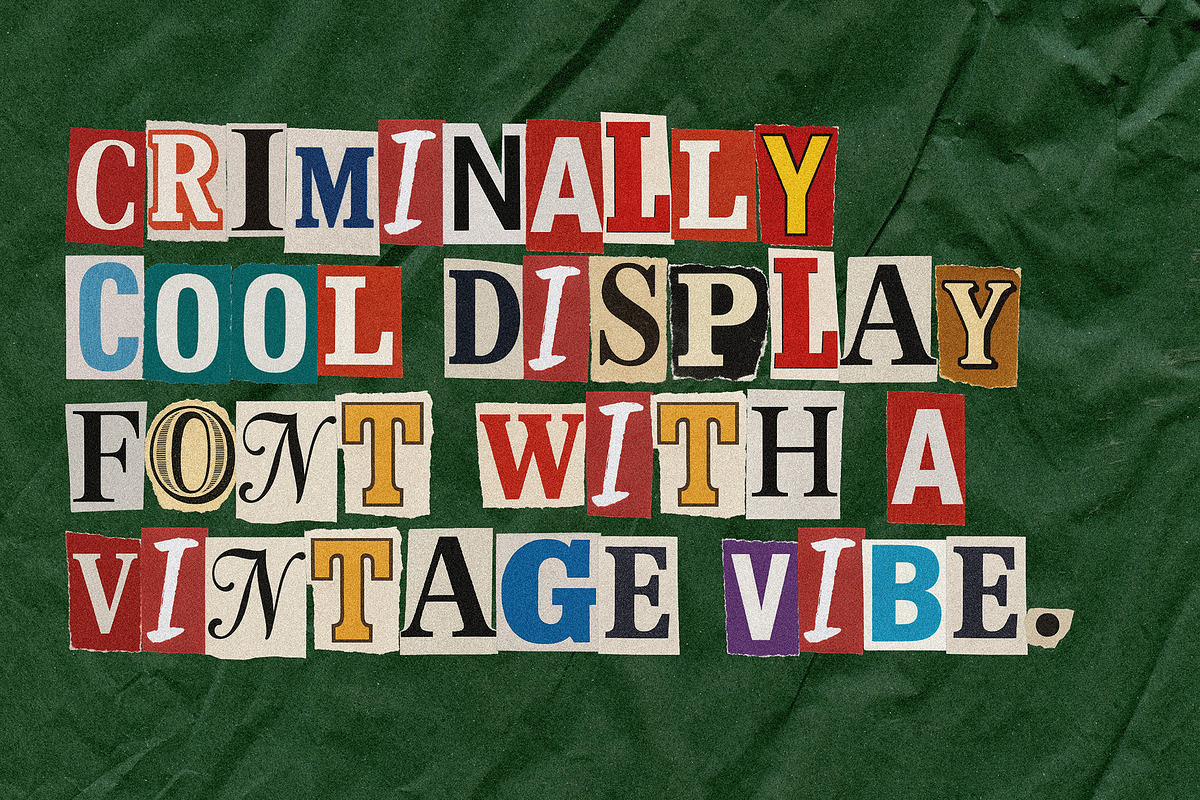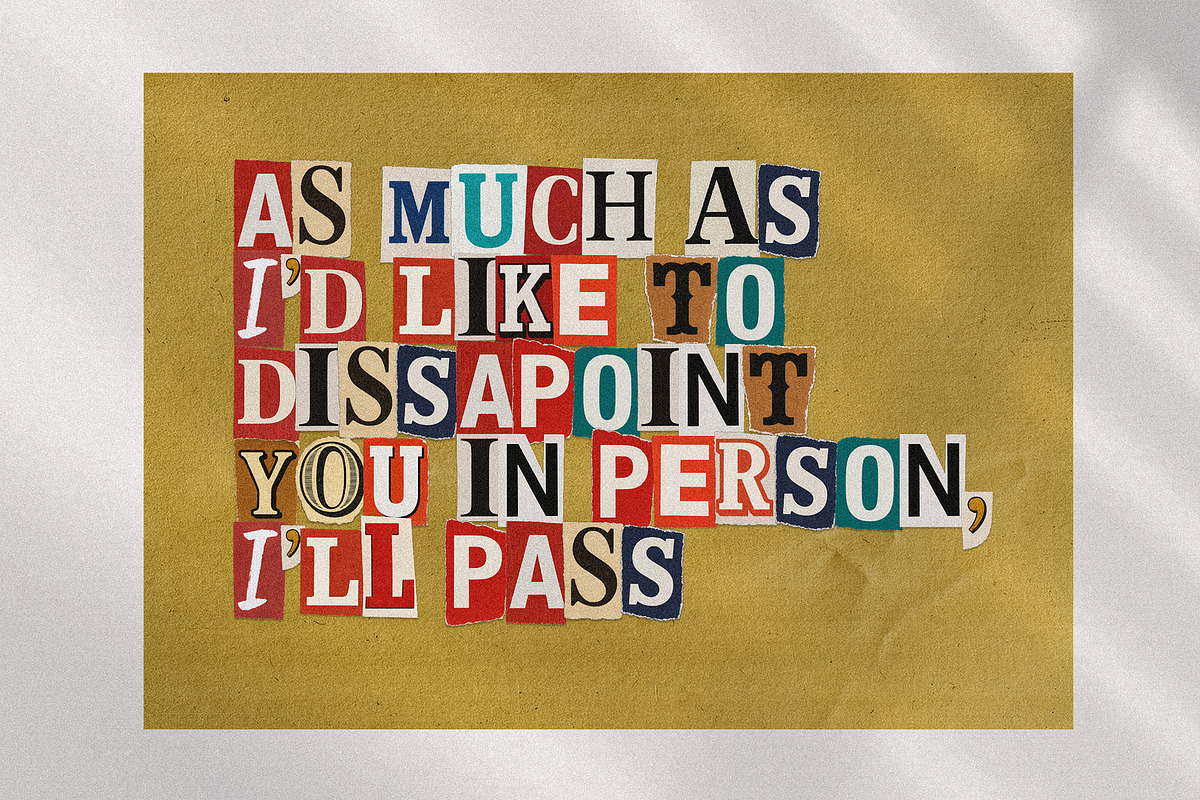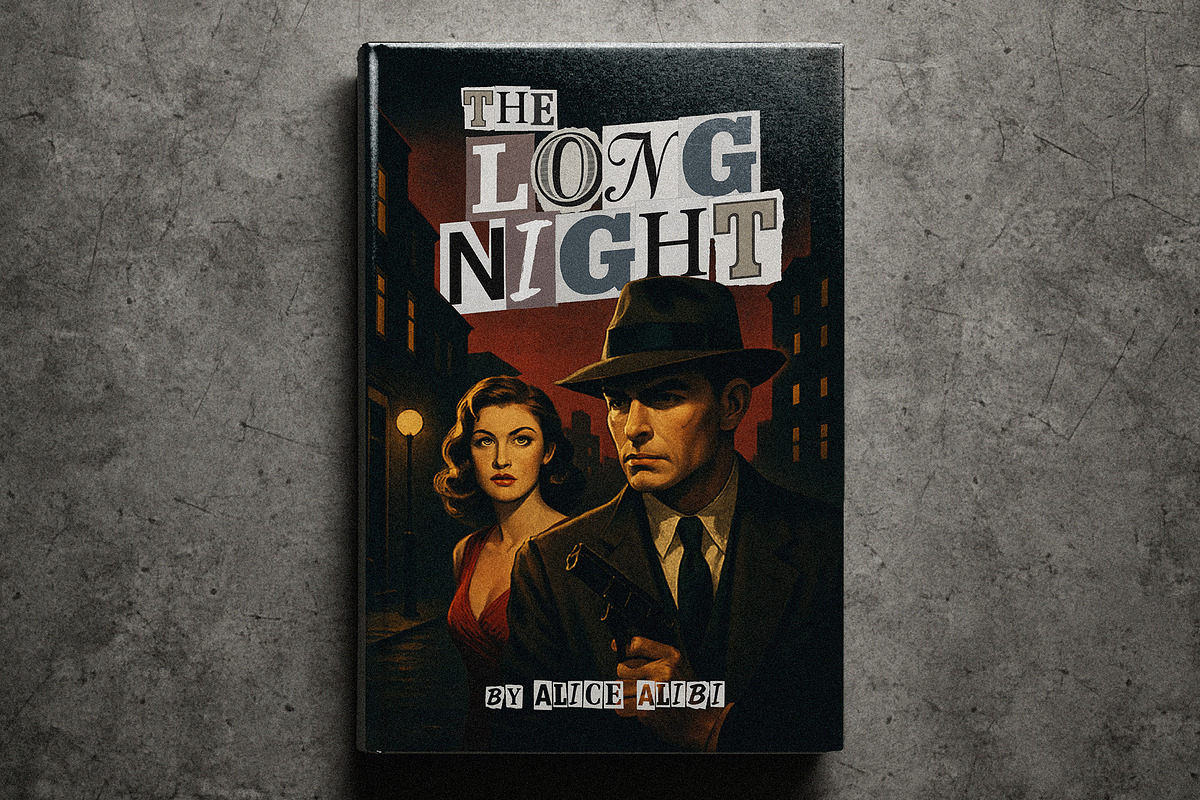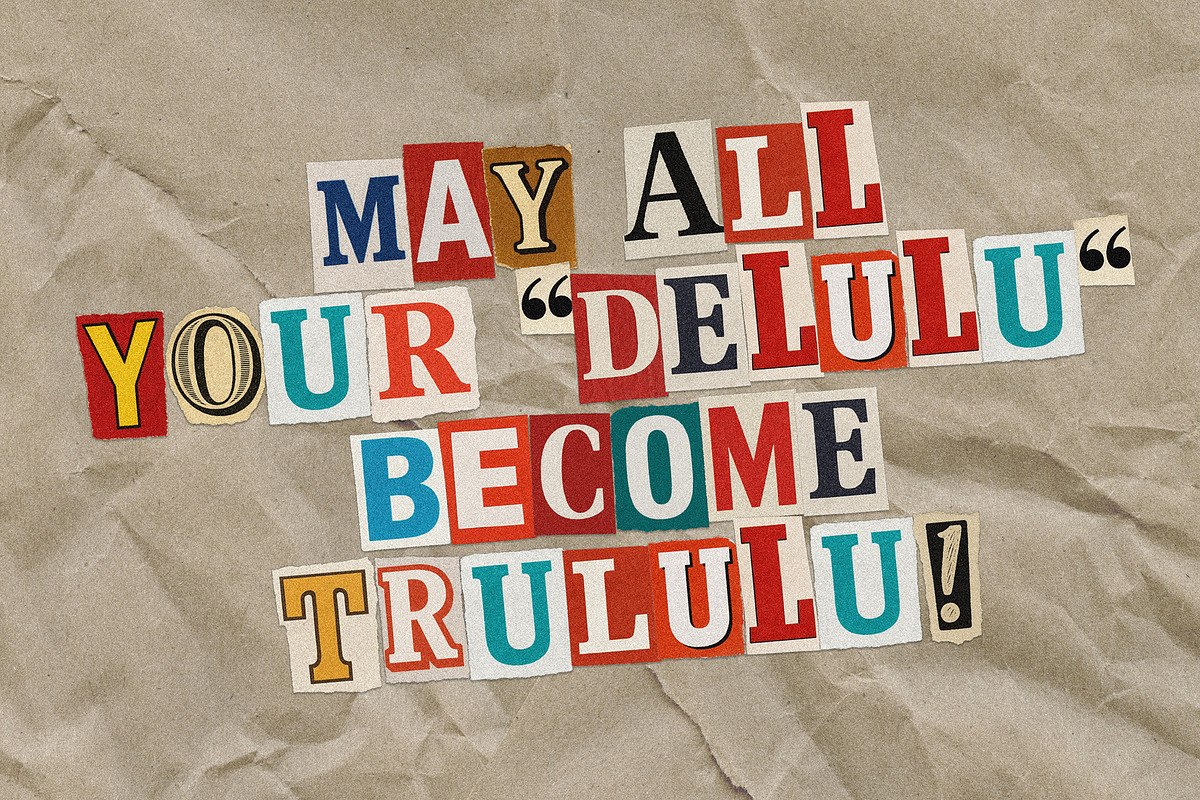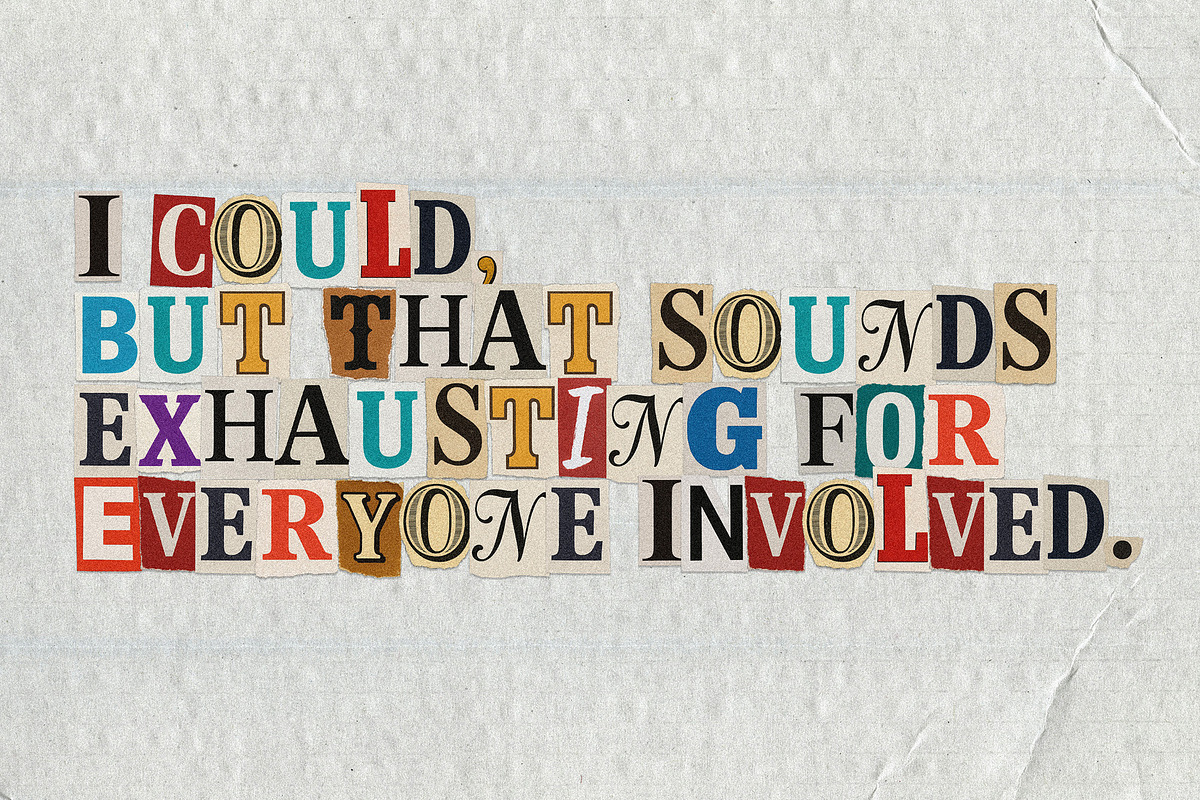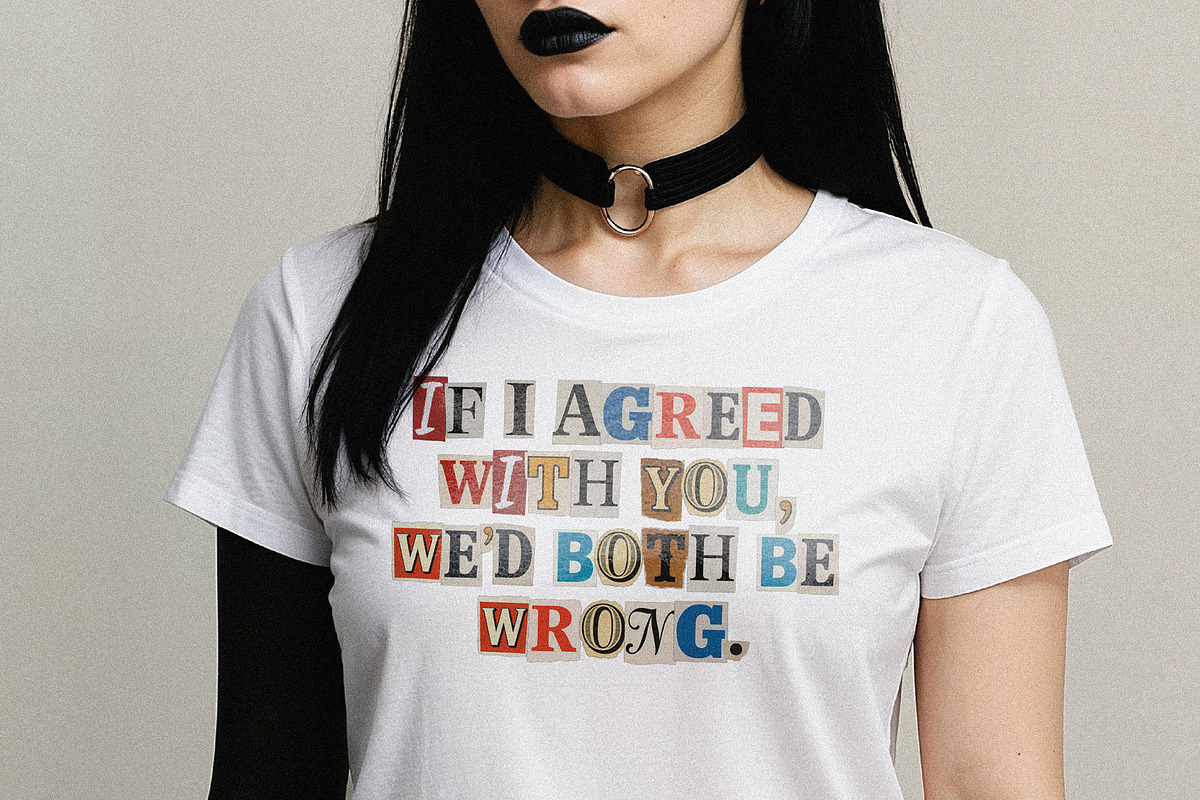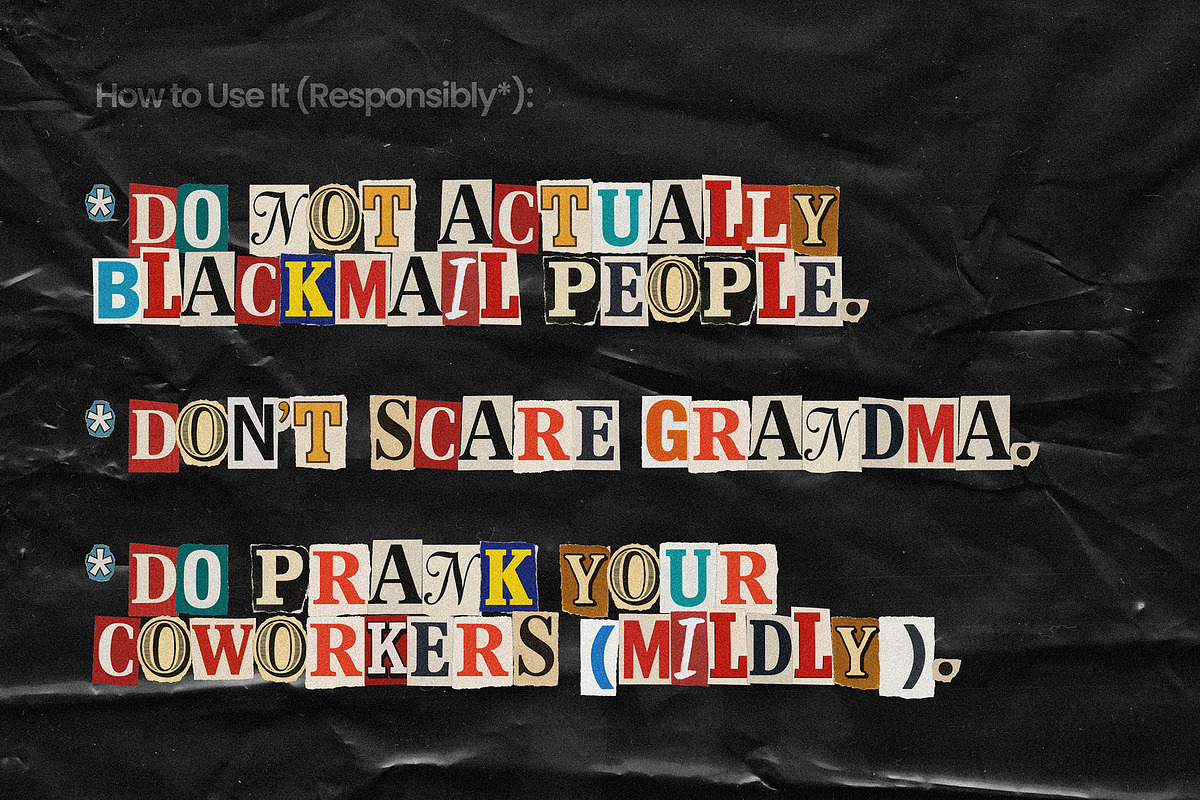
Blackmail — Paper Cutout Bitmap Font
Blackmail is a bold and mischievous ransom-style font inspired by classic magazine and newspaper letter cutouts. It’s loud, unpredictable, and full of chaotic charm — the perfect type duo for adding edgy personality to your designs.
- Blackmail Regular (OTF) – A full-color bitmap font with authentic texture, using vibrant magazine cutout letters.
- Blackmail Letter (OTF) – A clean, scalable vector version for all traditional uses.
- Crime show posters
- Podcast covers
- Horror or thriller book titles
- Halloween flyers